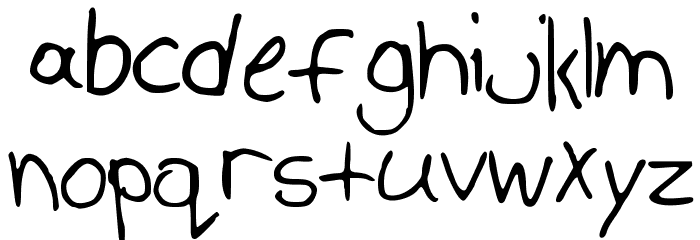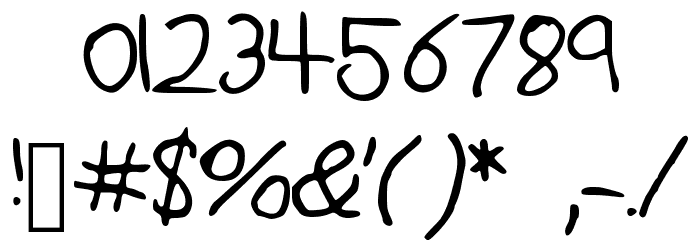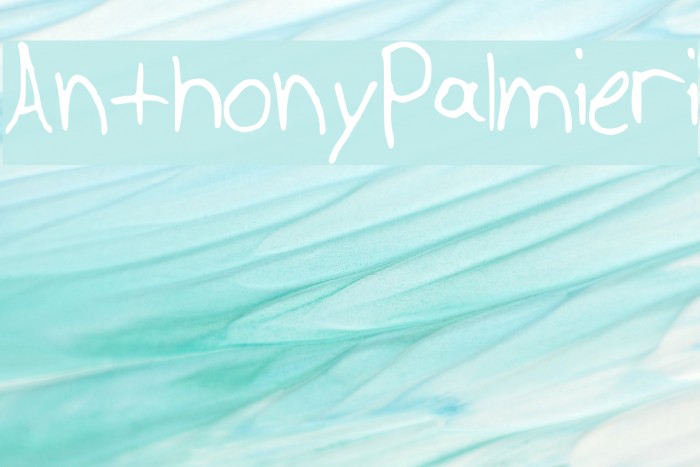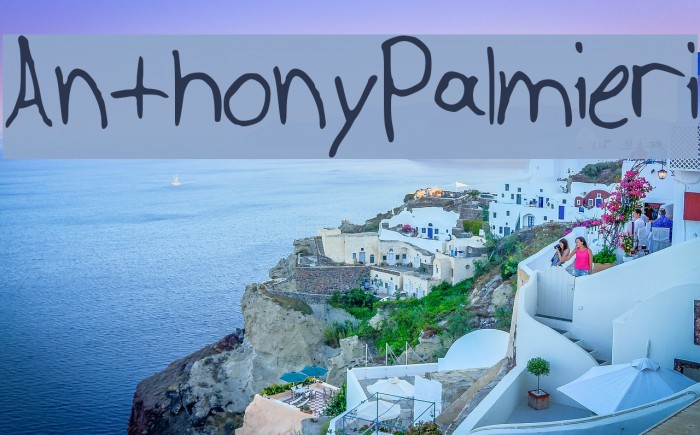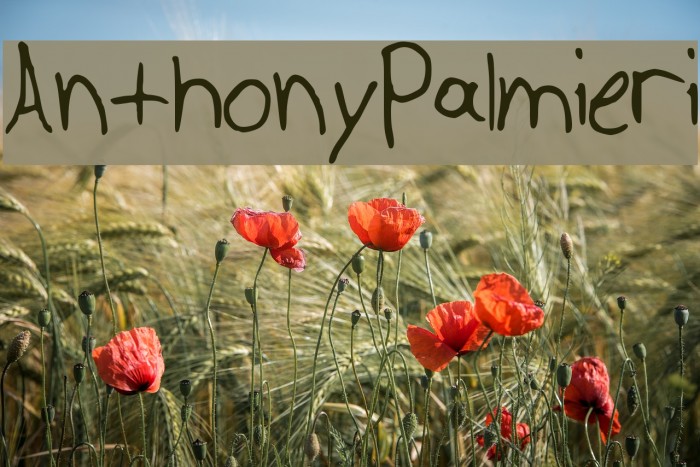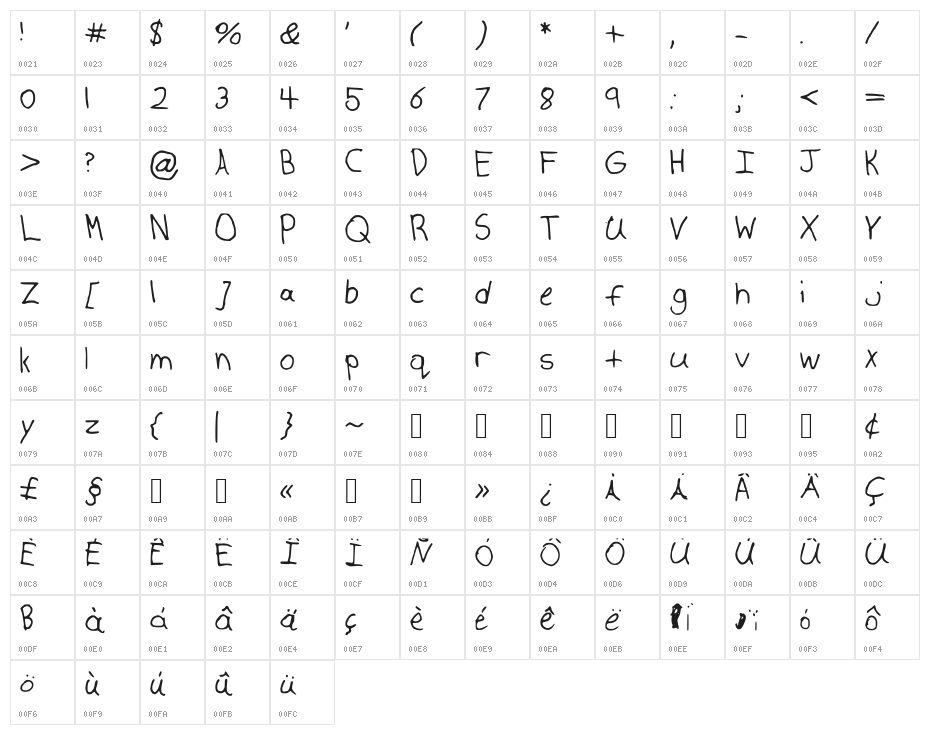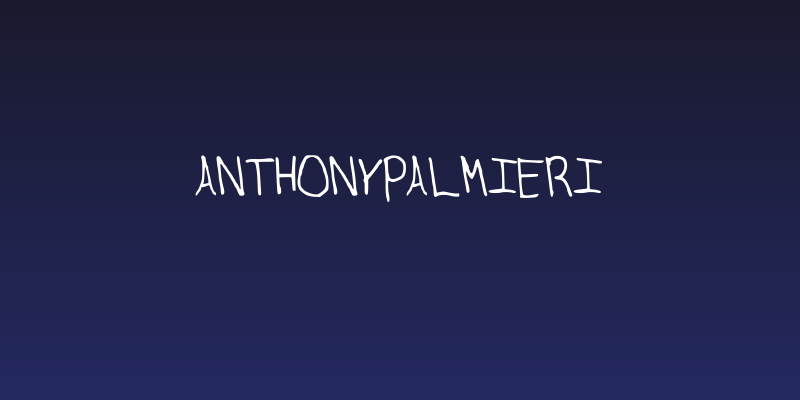
AnthonyPalmieri Font
This font exhibits a playful and casual handwritten style, characterized by its irregular and slightly uneven strokes that give it a personal and informal feel. The letters are freeform with varying heights and widths, adding to its whimsical charm. The uppercase letters are bold and prominent, while the lowercase letters maintain a consistent flow, enhancing readability. Numbers and special characters follow the same playful design, making them cohesive with the alphabet. This font is ideal for projects that require a touch of personality and creativity, such as greeting cards, invitations, or children's book illustrations.
A playful, casual handwritten font with irregular strokes and a whimsical charm.
- Proposed Projects: Ideal for greeting cards, invitations, children's books, and creative projects.
- Category: Handwritten
- Overall Style: Casual
- Use Case: Headlines, Creative projects